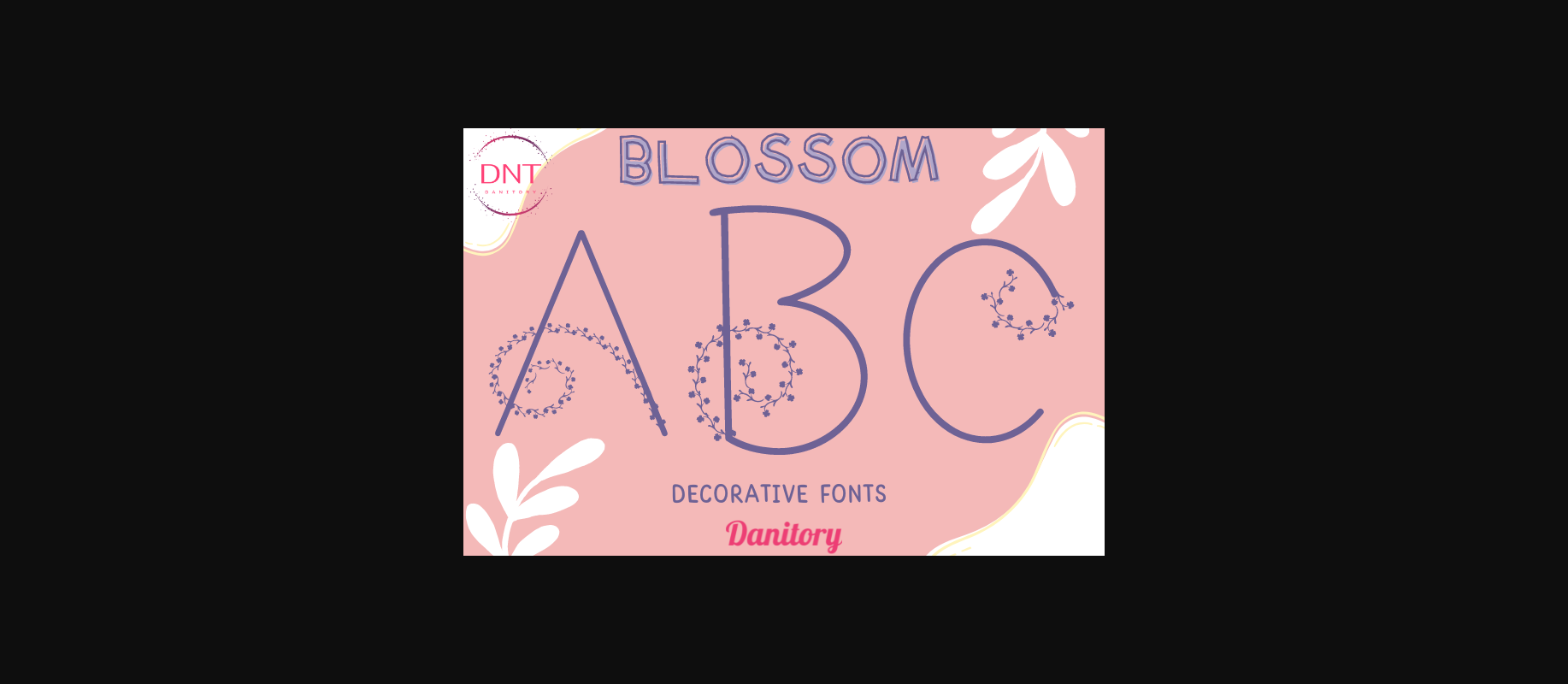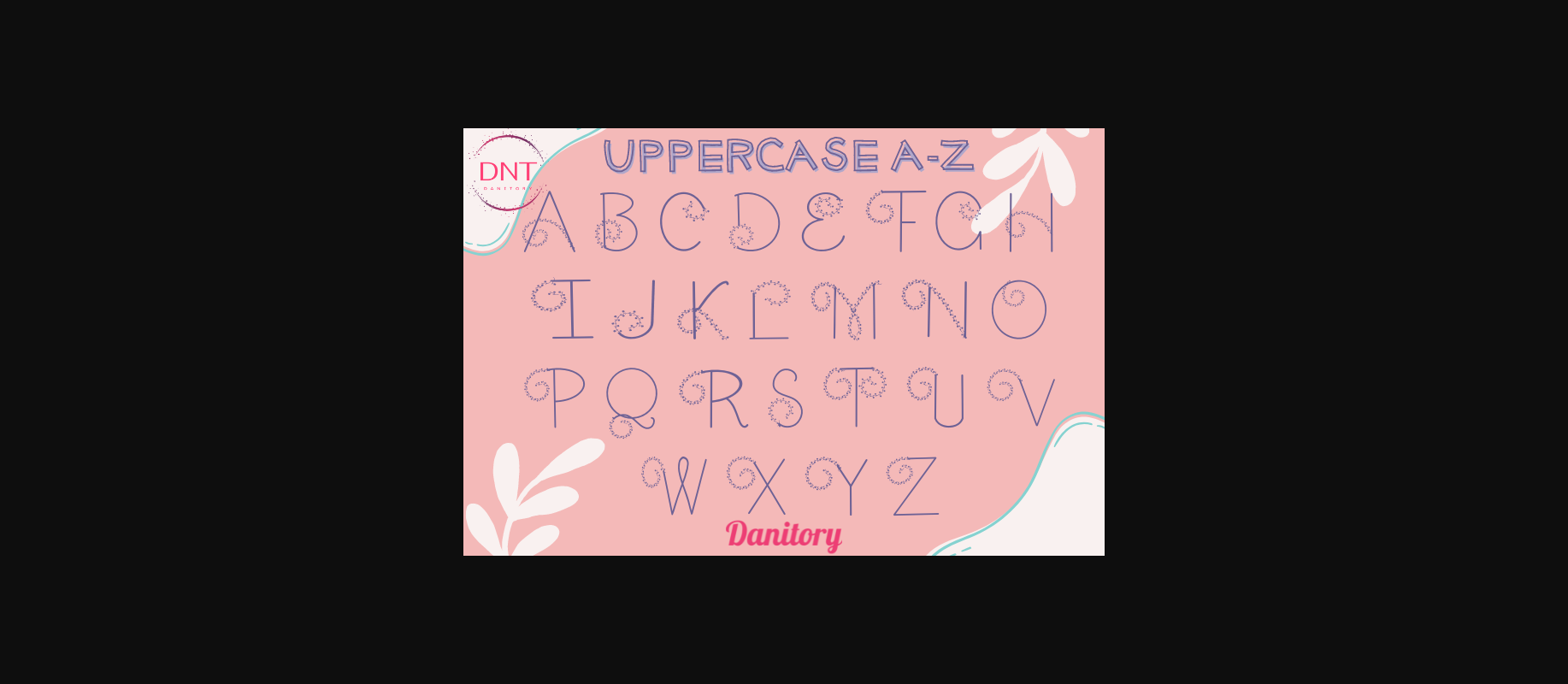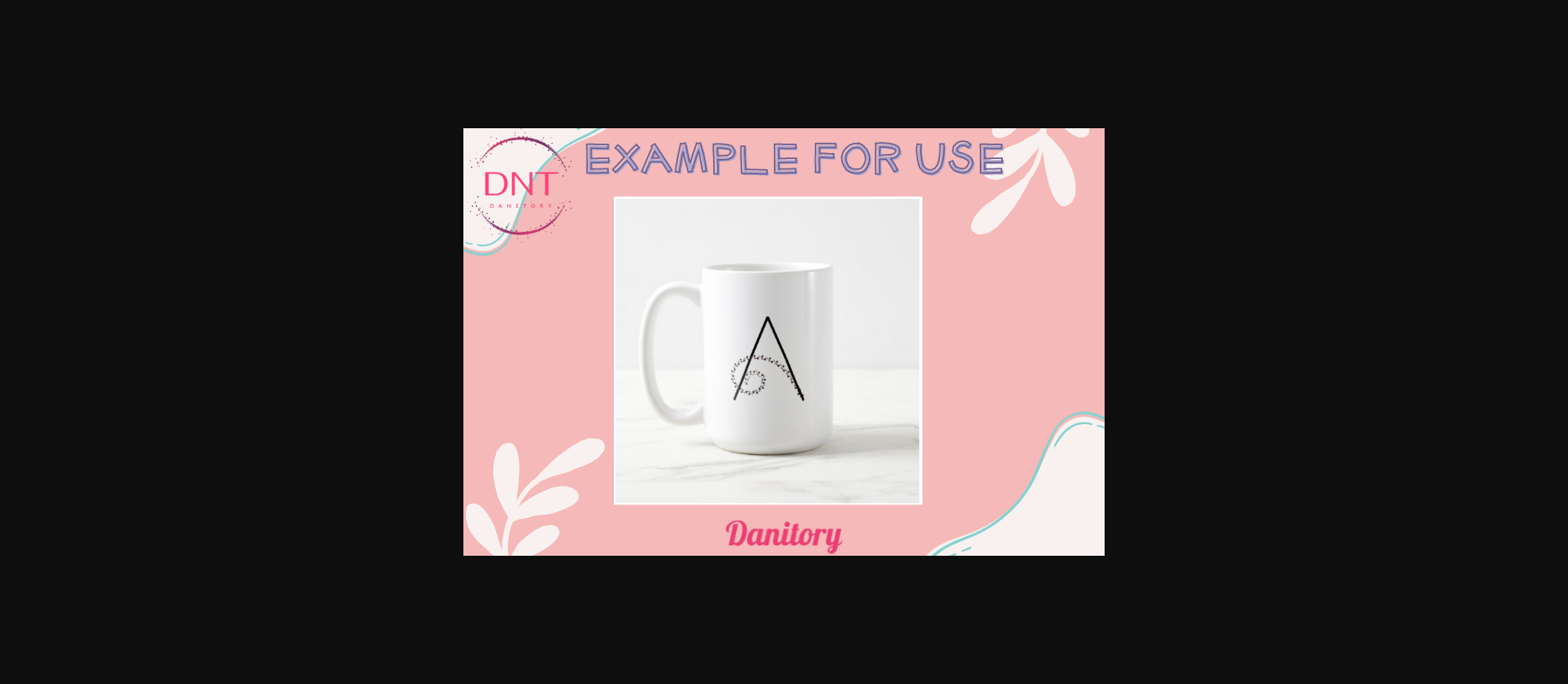
Blossom Font
About Blossom Font
Blossom is a sweet and adorable decorative font. Add it to your crafty ideas and you will love the results! This font is perfect for adding charm to your projects such as bullet journaling, scrapbooks, invitations, and other designs that require a cute touch.